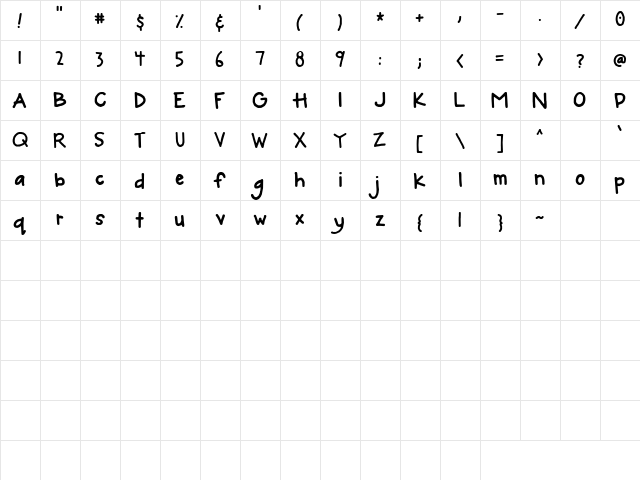
LD Dabble Regular
Design Context for LD Dabble Typeface
LD Dabble takes a measured approach to typography — its balanced proportions and neutral character make it a reliable workhorse for both digital and print work.
Pro Tip: Use LD Dabble in both headline and body roles to test its range before committing to a single application.